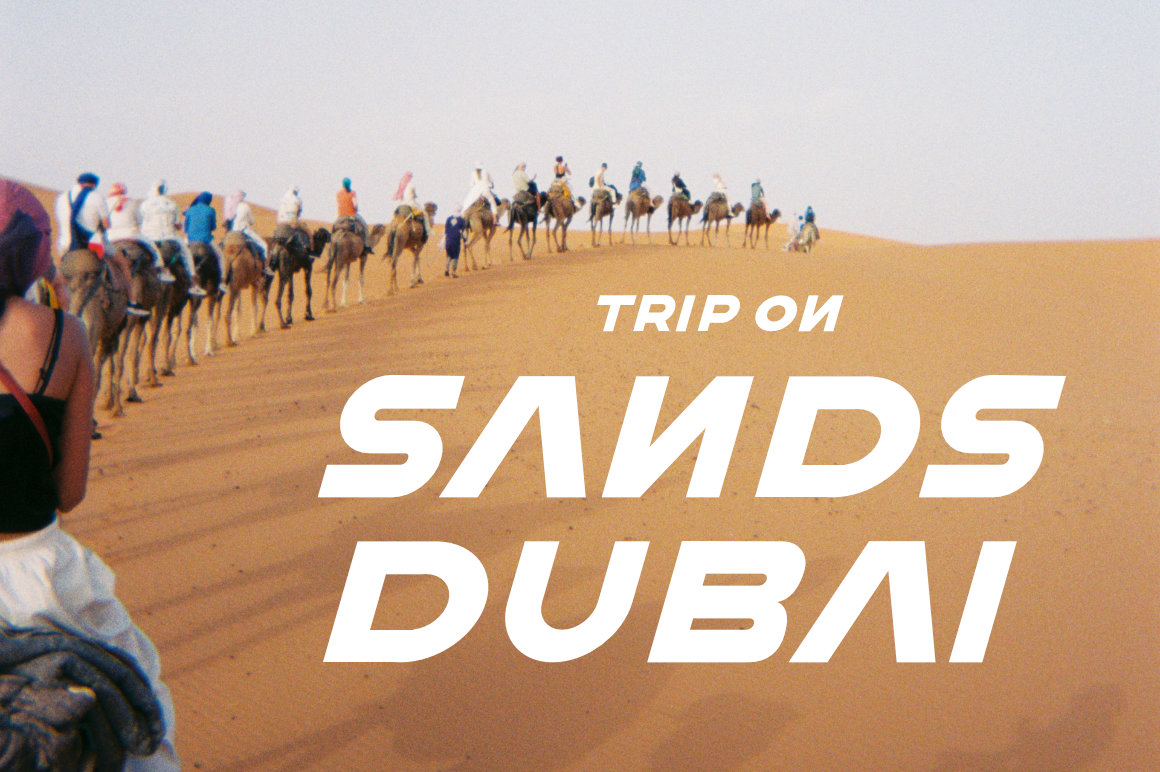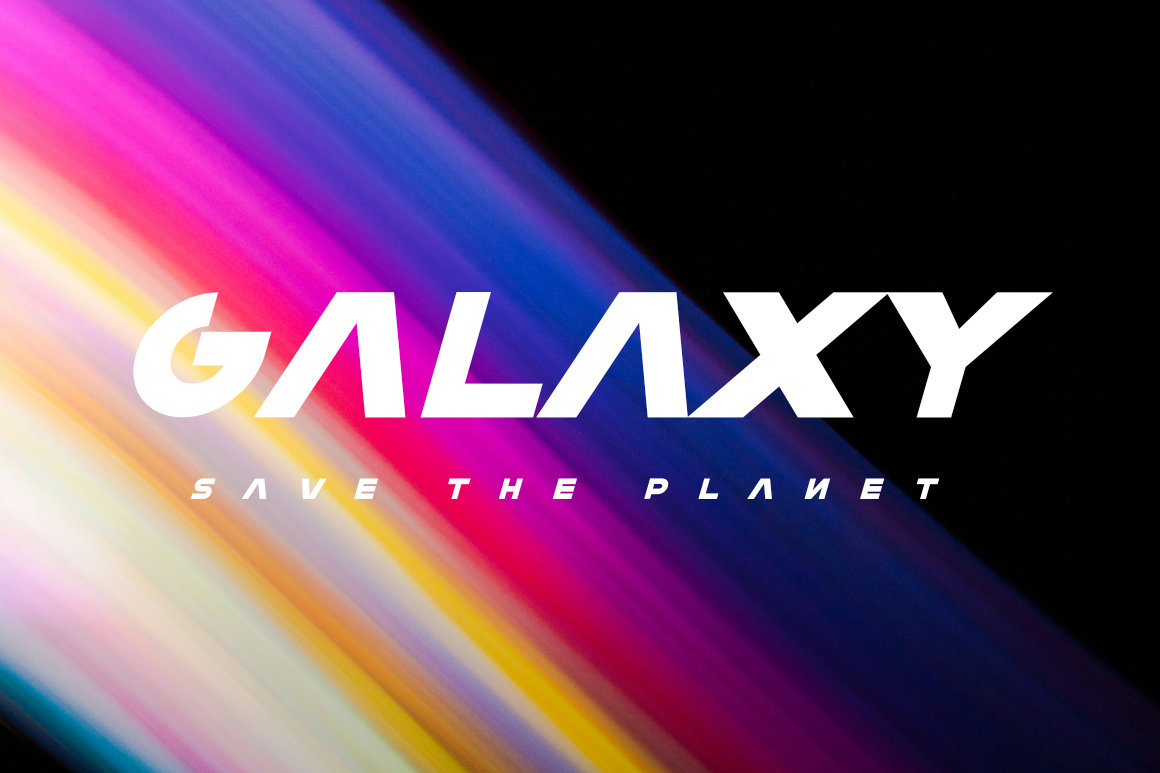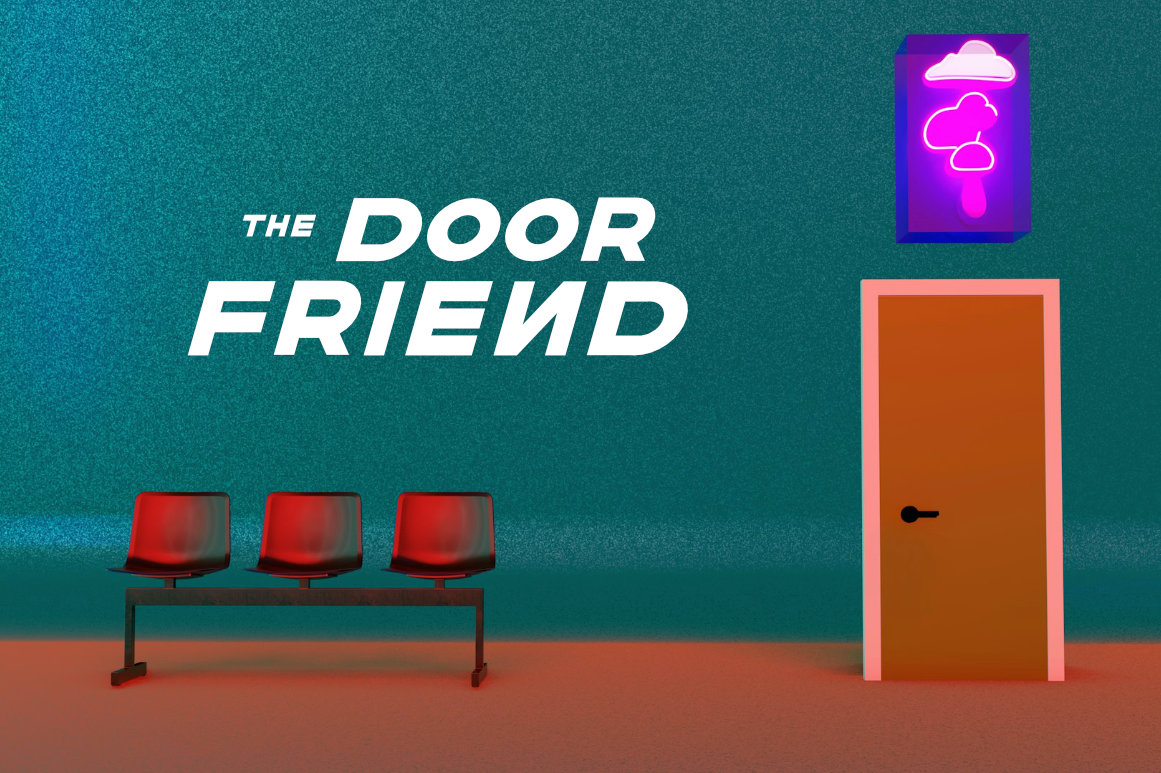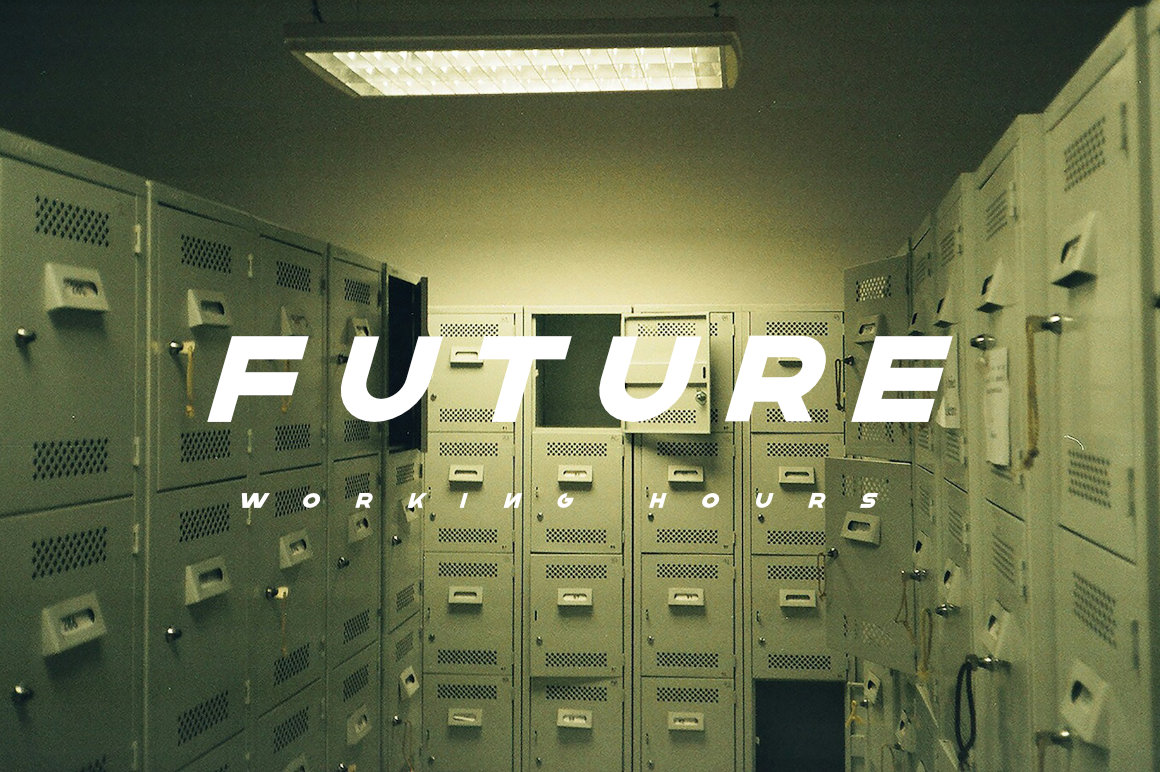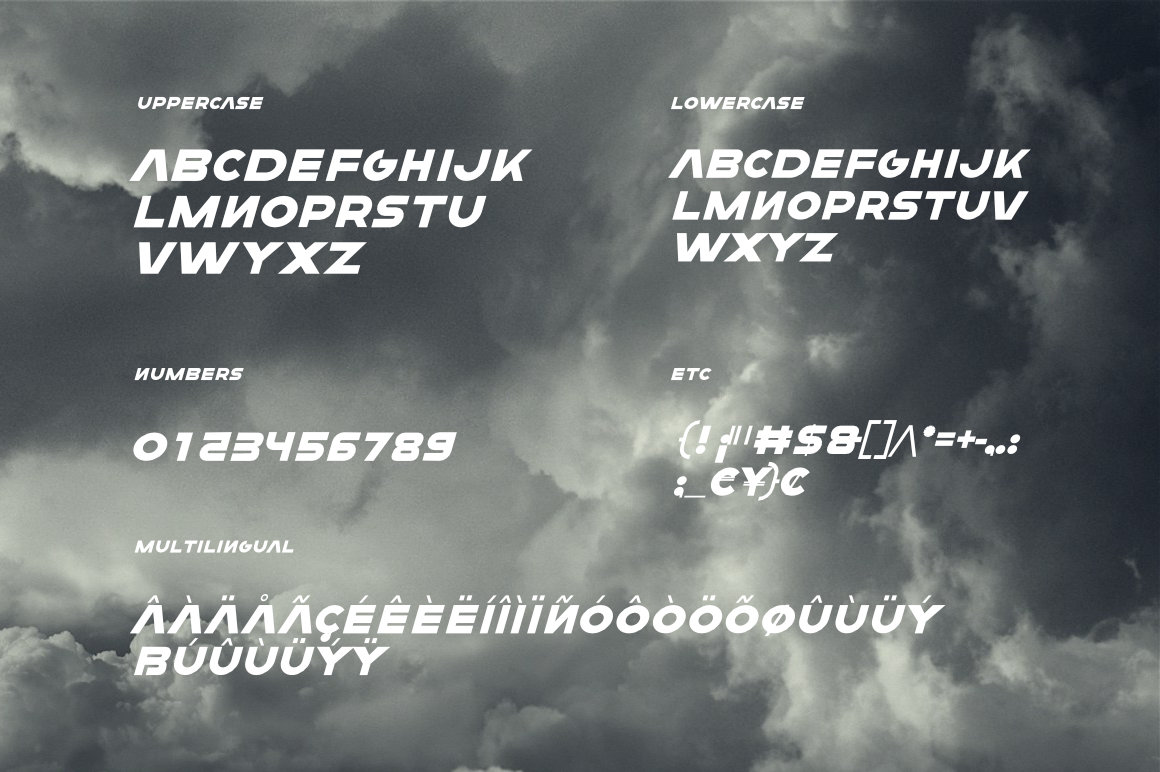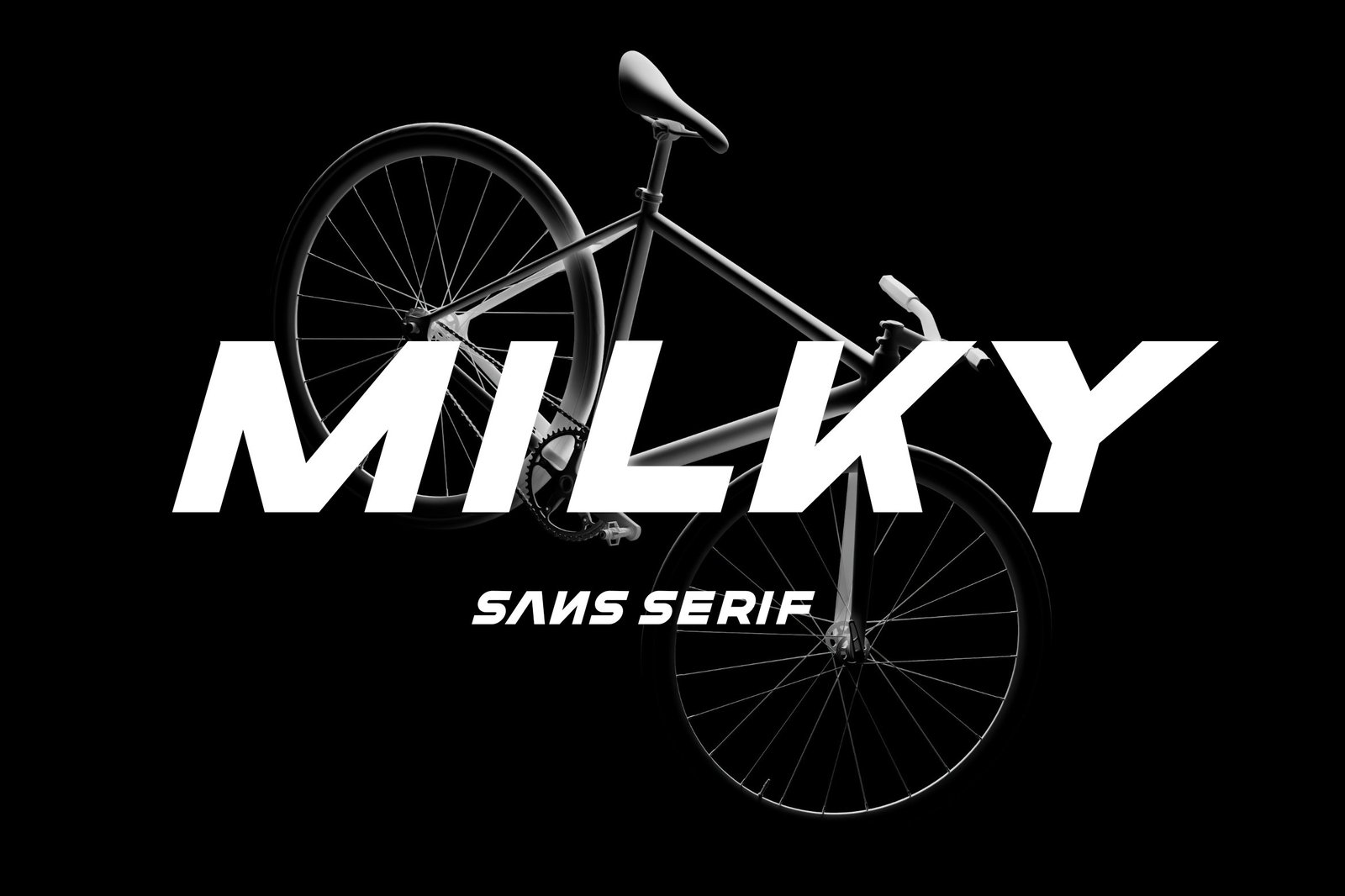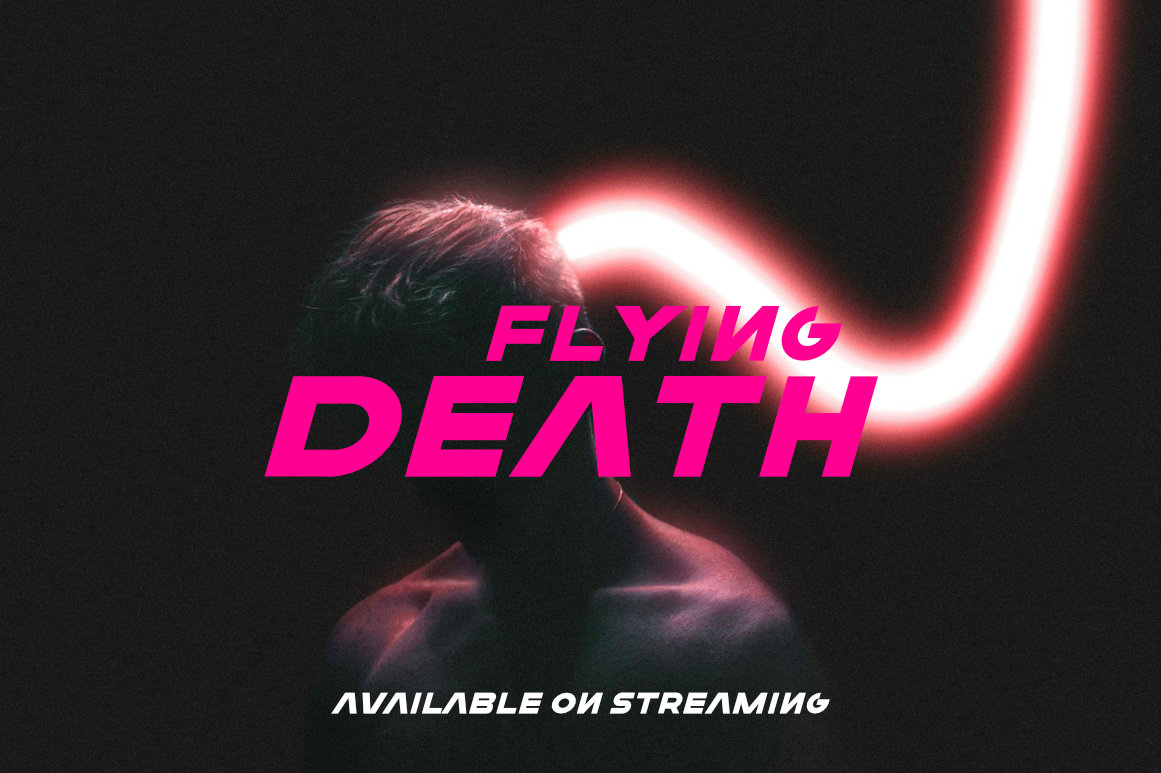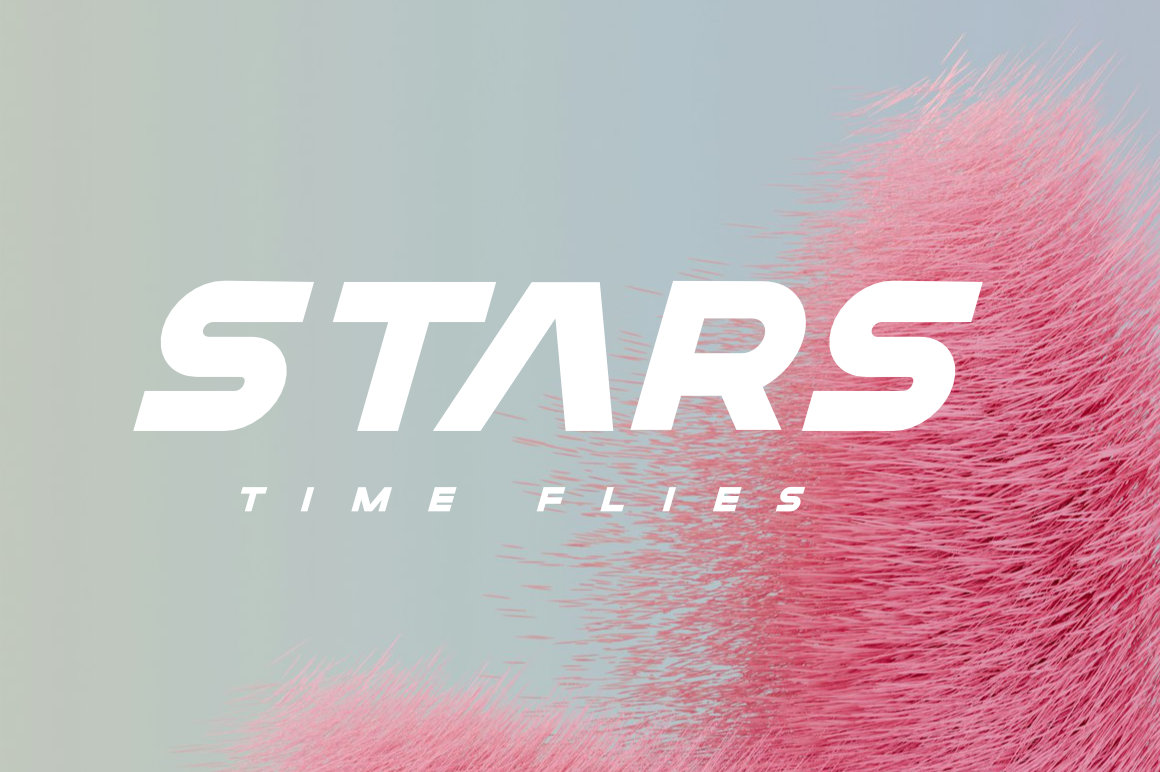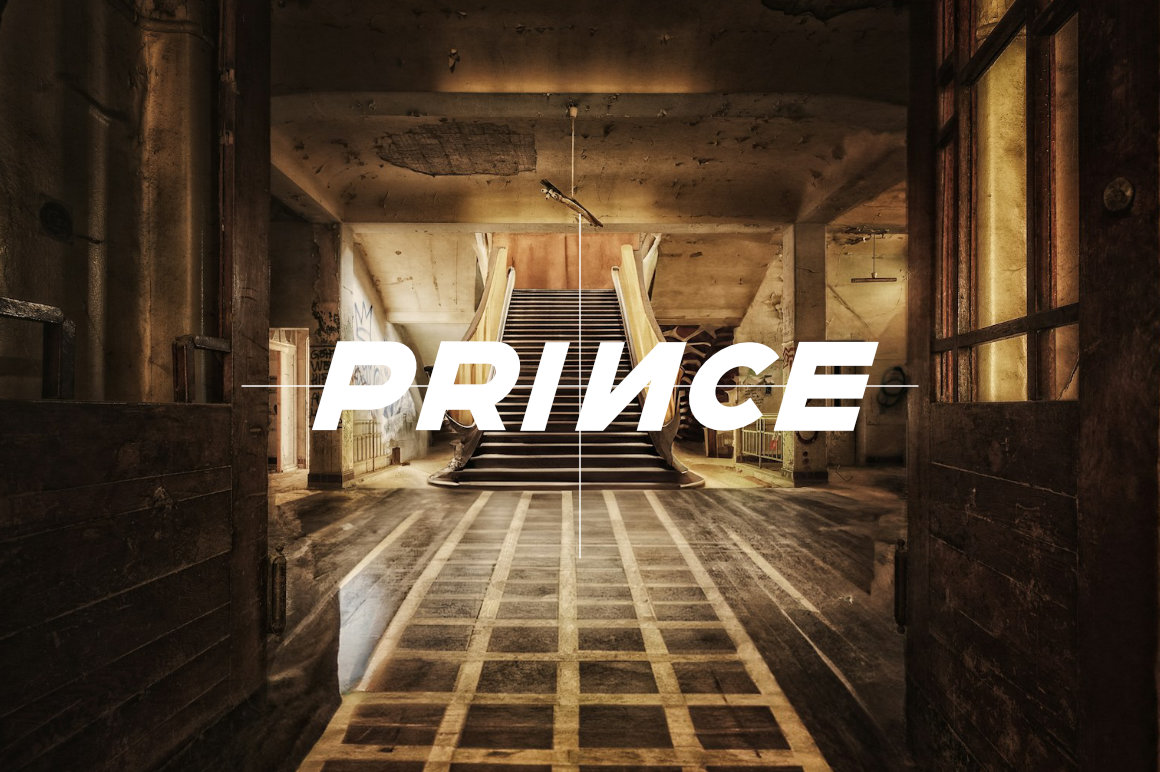
Fear Logo Italic Font
Imagine a world where letters dance, shapes shift, and typography becomes a living, breathing entity. Our dynamic fonts are not mere text; they are a canvas for expression. With every curve and stroke, these fonts tell a story, evoke emotions, and captivate your audience.
Type of character
Uppercase
Lowercase
Multilingual